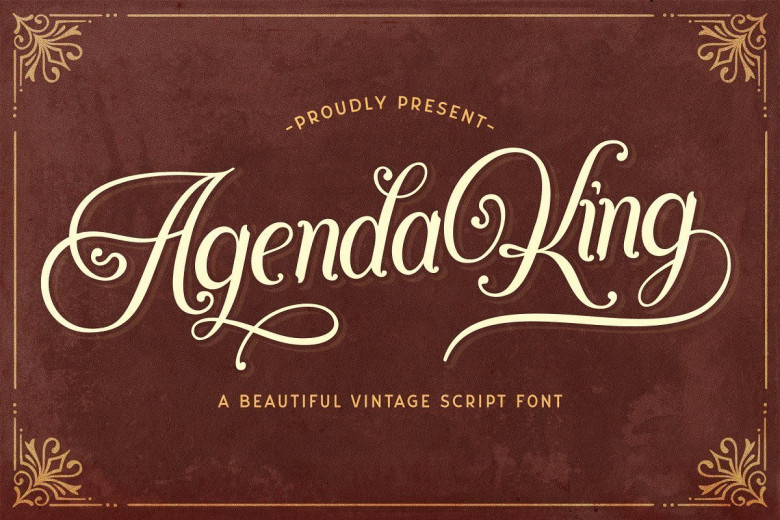
Agenda King Calligraphy Vintage Script Font
Introducing. Agenda King Font is a stylish calligraphy vintage script font that features a varying baseline, smooth line, modern and with a depth love. For those of you who are need a touch of love and modernity for your designs or branding.
It can be used for various purposes such as headings, wedding, invitation, signature, logos, branding, t-shirt, letterhead, signage, lable, news, posters, badges etc. This font is free for PERSONAL USE. Link to purchase full version and commercial license: HERE